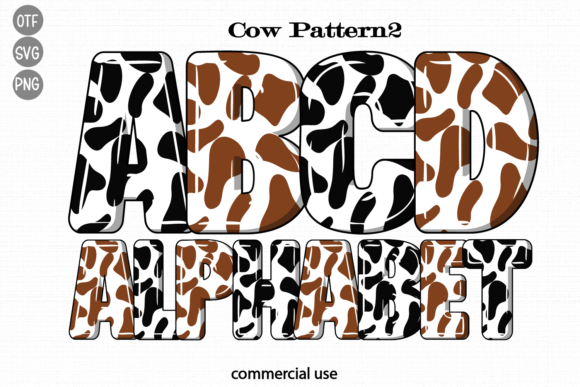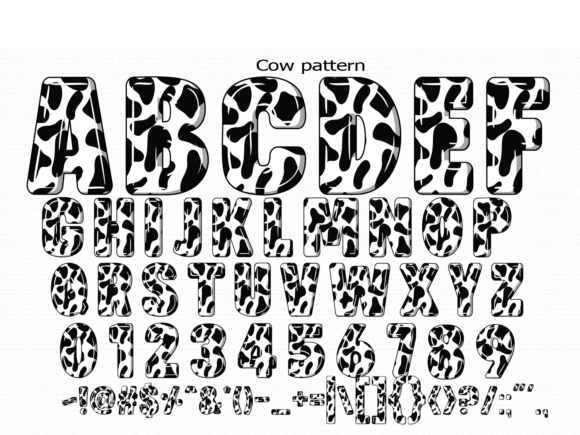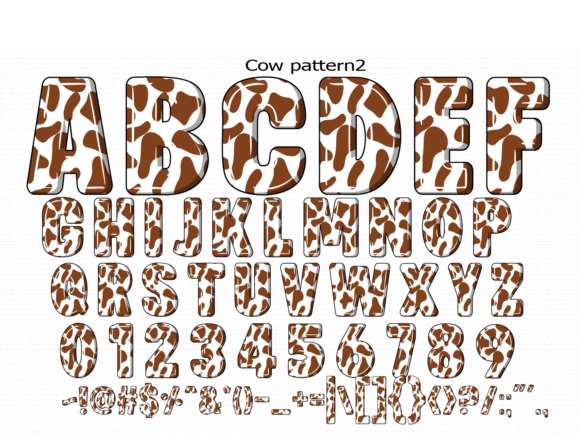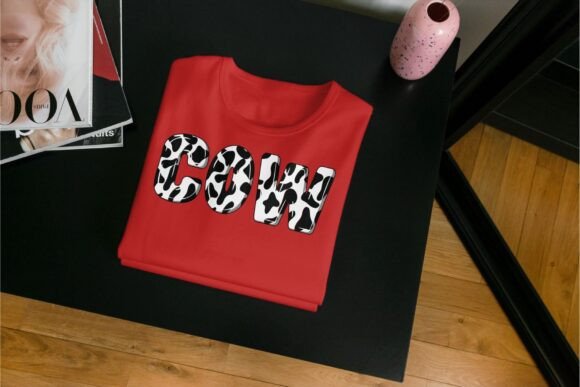
Cow Pattern Font
About the Cow Pattern Font
The Cow Pattern Font is here to transform your projects with its distinctive character and style. Introducing “Cow Pattern” – This charming typeface is crafted with Inspired by the cow skin pattern for you to use in your farm animals-theme ideas projects, makes your designs stand out with a cool and original-looking color font perfect for logotypes, headlines, and corporate identity, and brand identity, the apparel industry, posters, music, movies, games, magazines, books, comics, and cartoons.